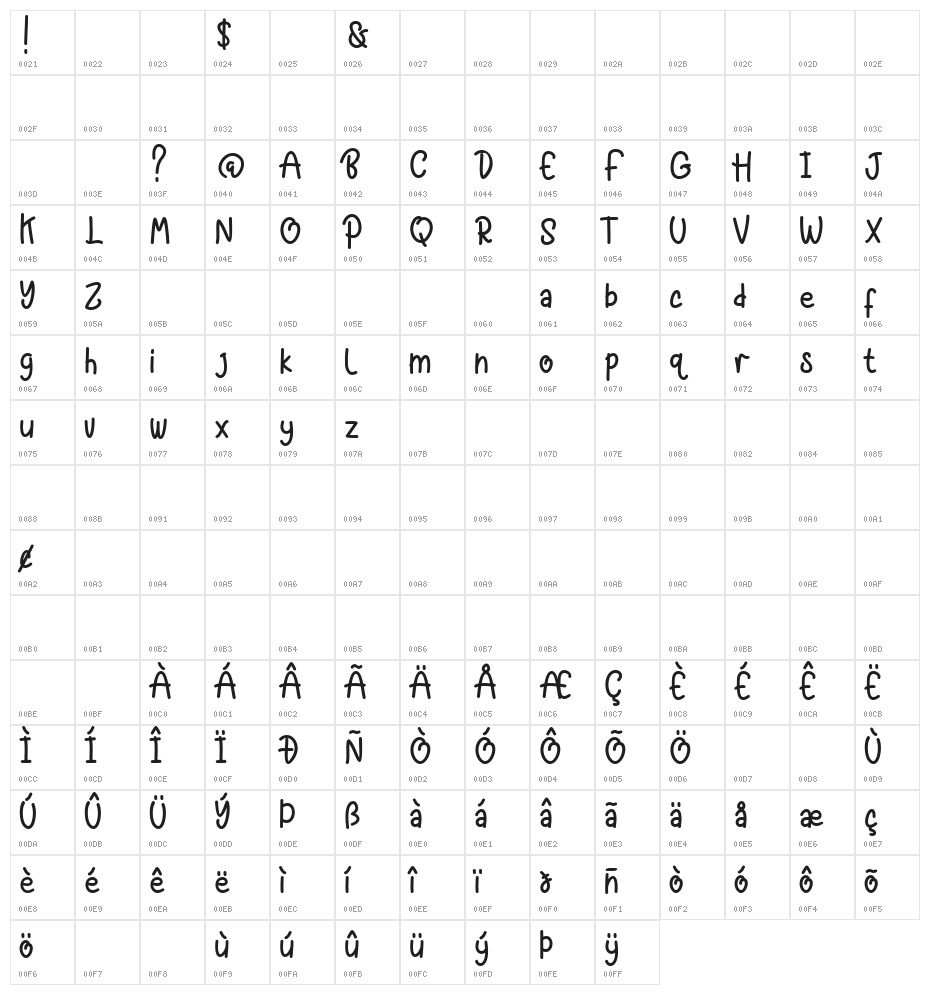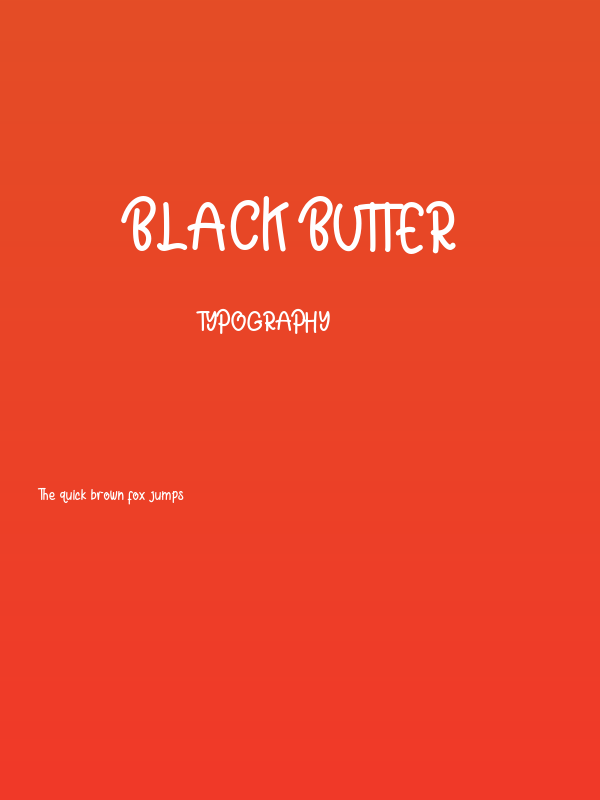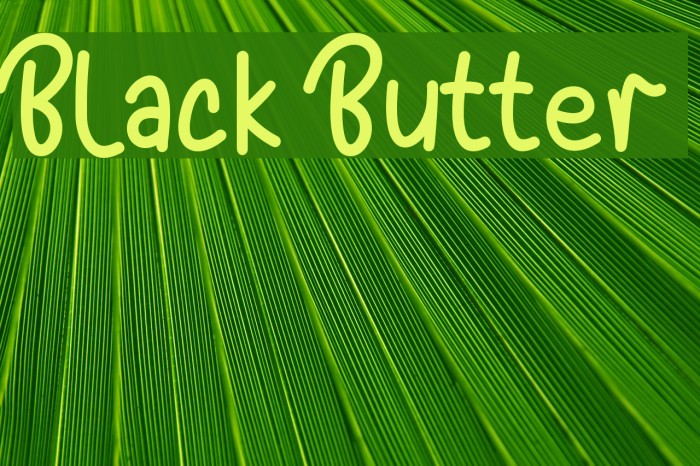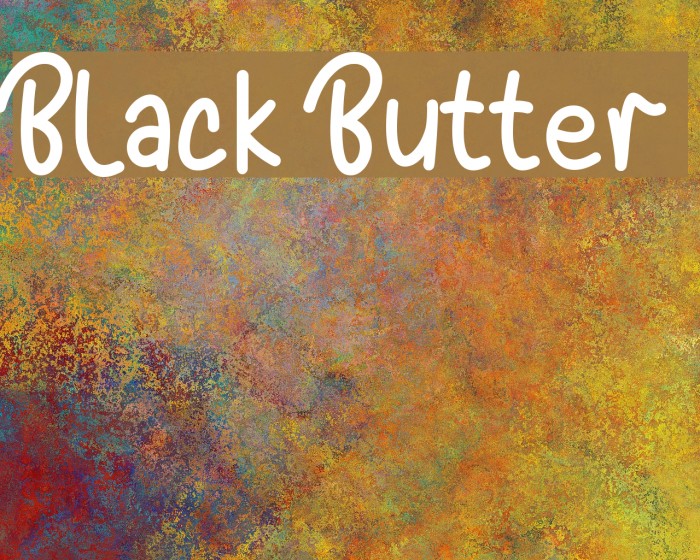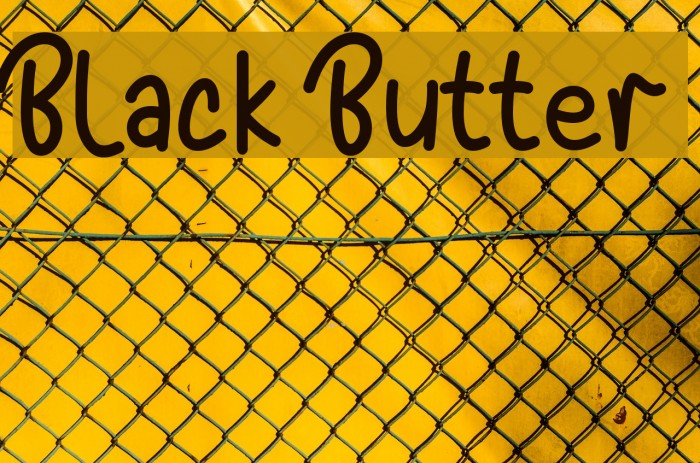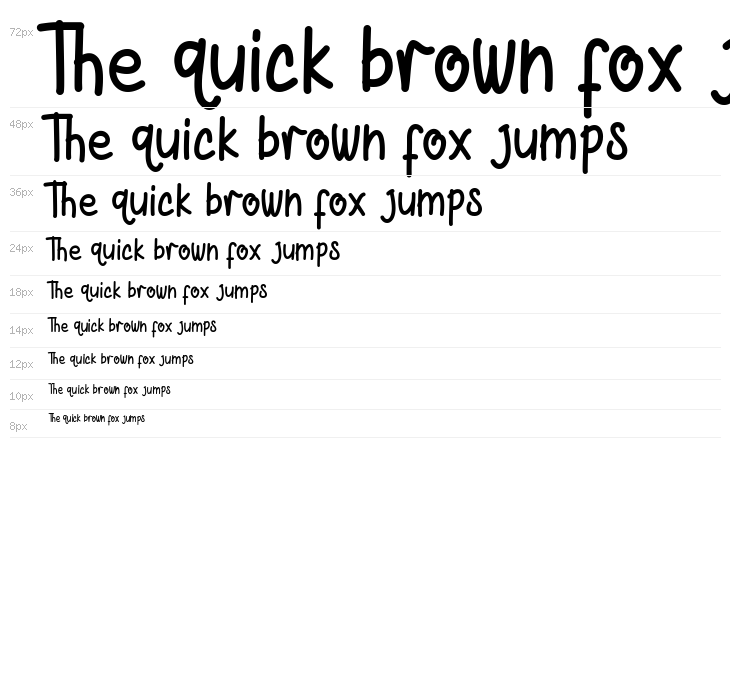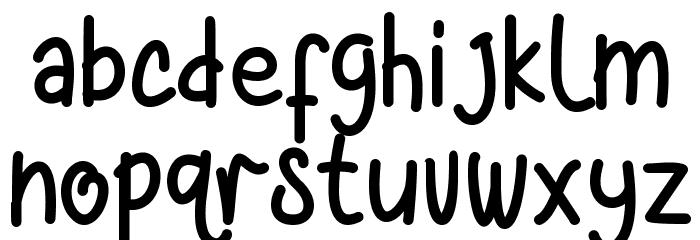
Black Butter Font
Black Butter Description
This playful and whimsical font features a handwritten style with a casual and friendly appearance. The characters are rounded and slightly irregular, giving it a personal and informal touch. The uppercase and lowercase letters maintain a consistent flow, with a slight tilt that adds to its charm. The font includes a variety of special characters, enhancing its versatility. Its bold strokes and smooth curves make it suitable for projects that require a fun and approachable aesthetic.
| Proposed Projects | Ideal for children's books, greeting cards, playful branding, and social media graphics. |